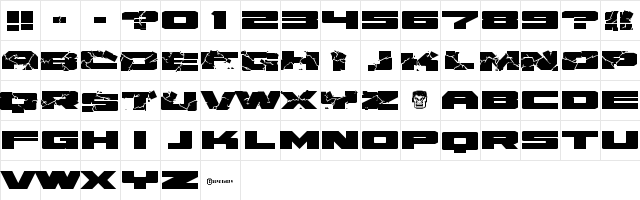
HulkSmash Regular
| Designer | Gene Buban |
Design Context for HulkSmash Typeface
HulkSmash is a composed and adaptable typeface that performs quietly and consistently across a wide range of design contexts.